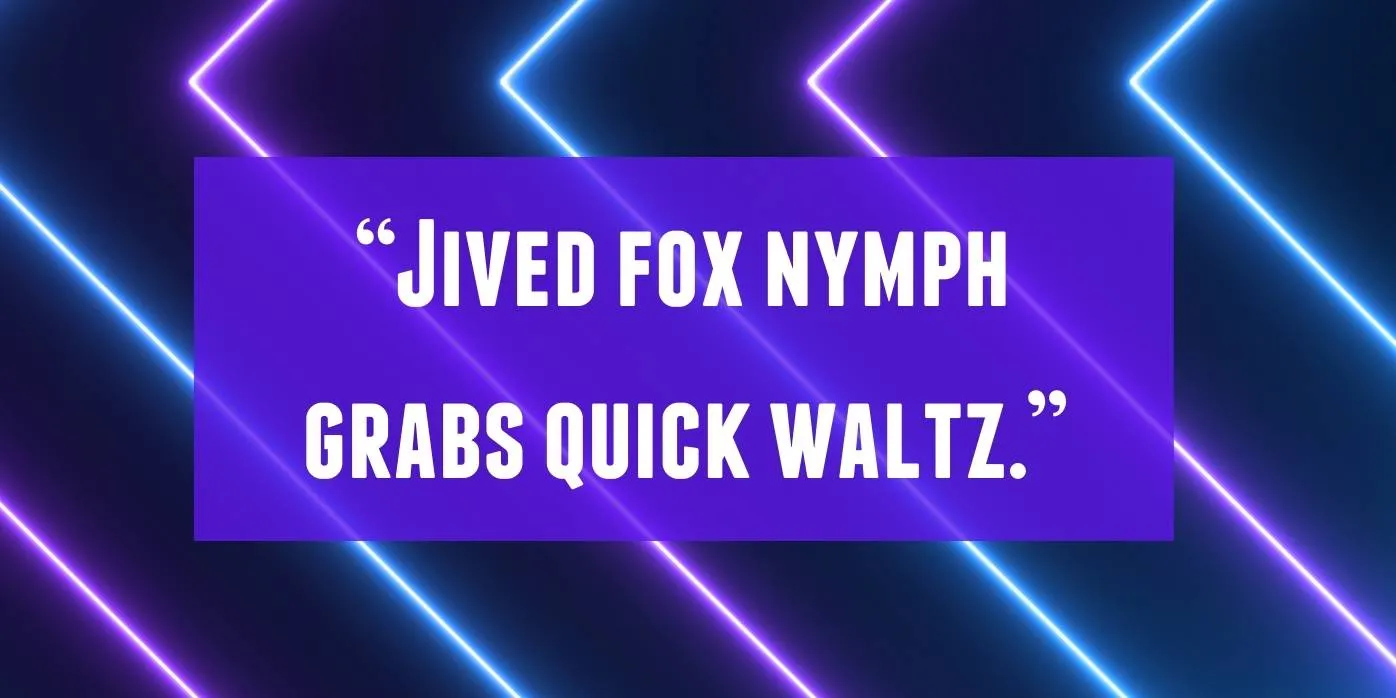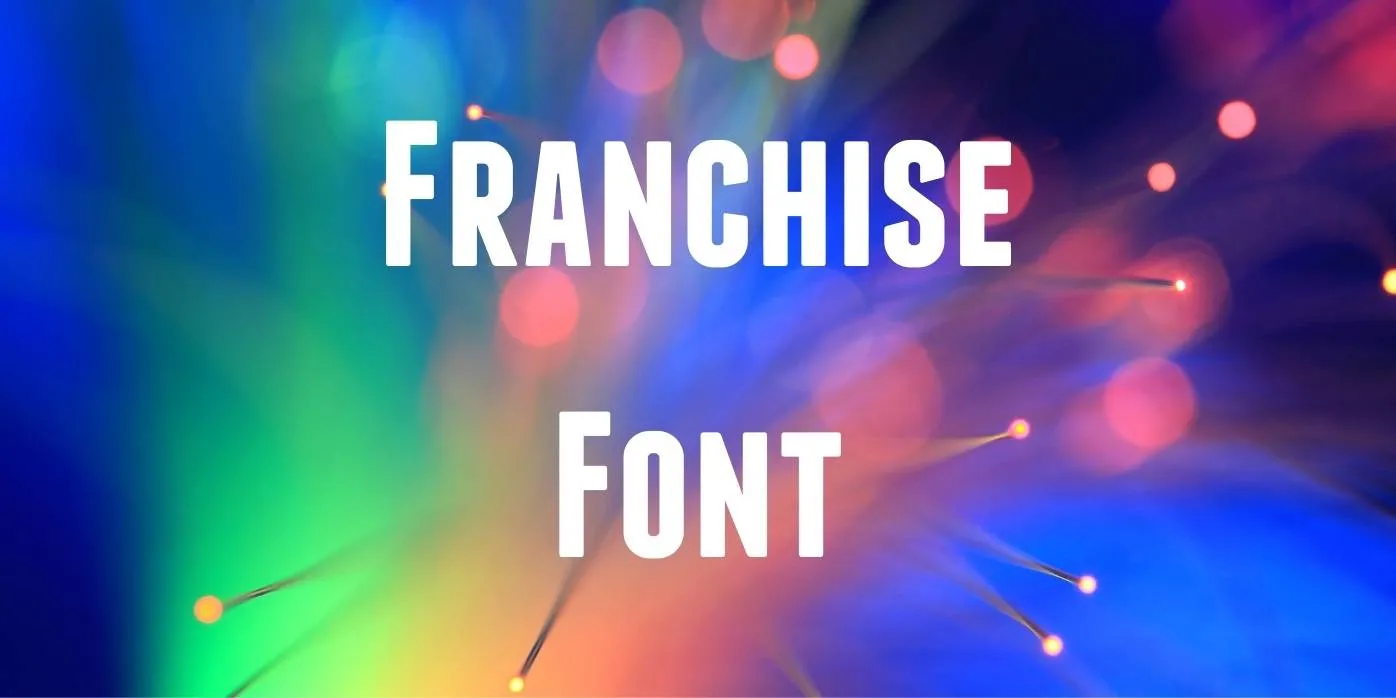
Franchise Font
Franchise Font is a typeface designed by Steve Matteson and released through Weathersbee Type in 2006. It is intended for use in logos and headings and is a commercial font license. This font is available in four weights: thin, light, regular and bold. It is specified by CSS.
It has been used by several large companies, including Burger King, Ford Motor Company, and Subway. It has also been used in the logos of several small businesses. This typeface is not included in Google Fonts, however, you can get it from our websites. The conspiracy font is similar to this cute font.